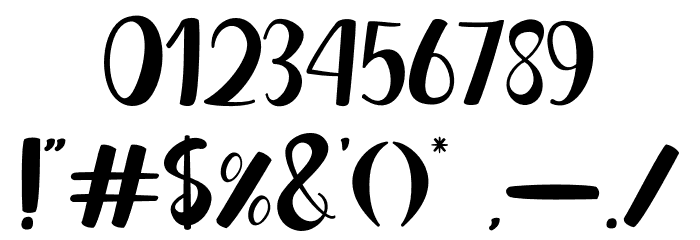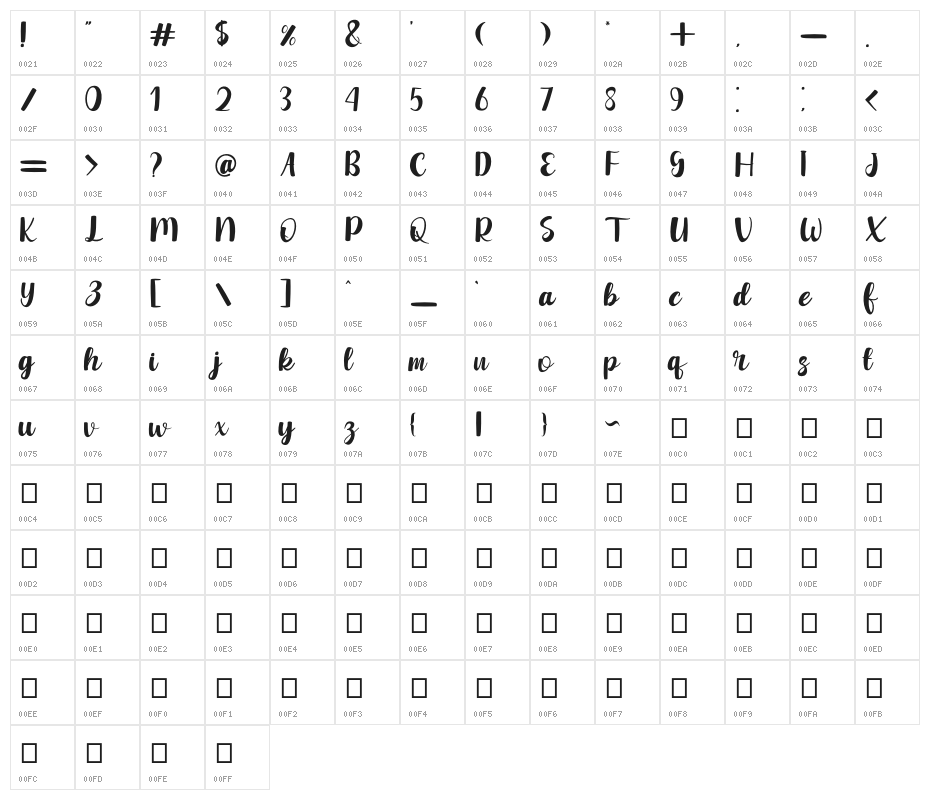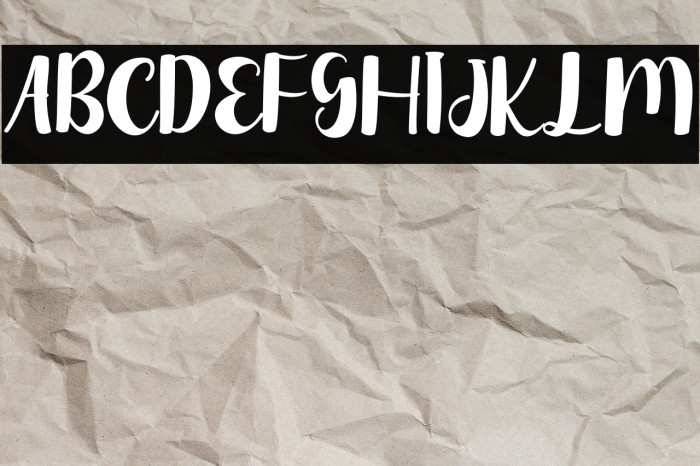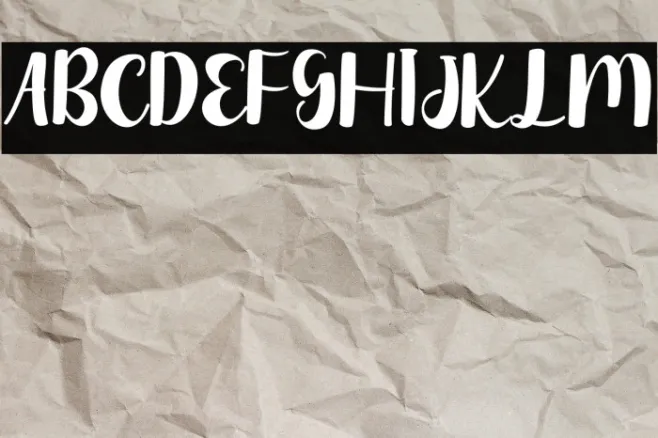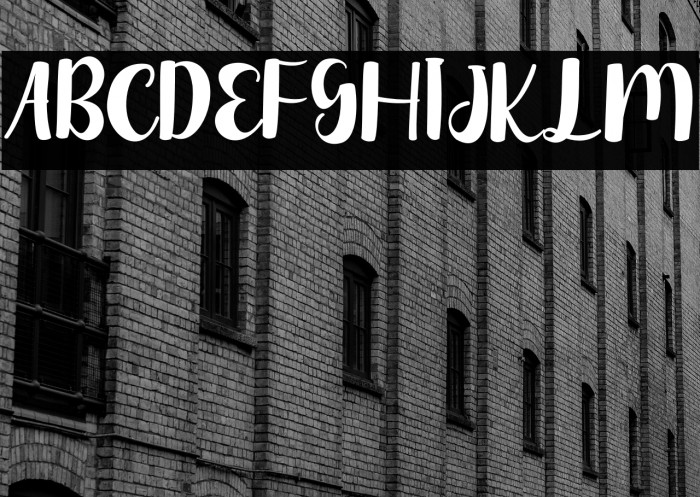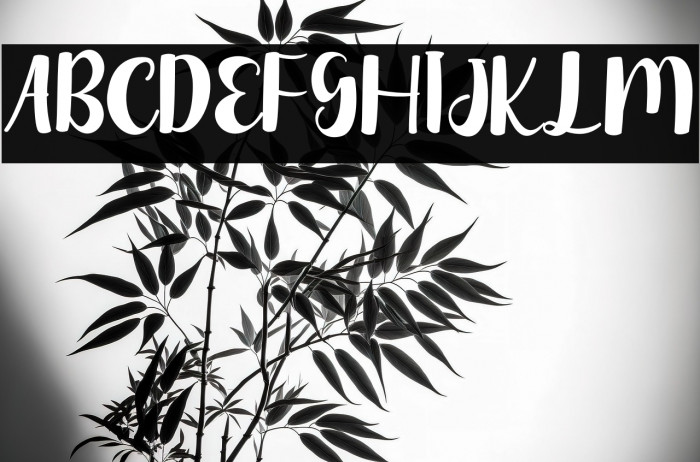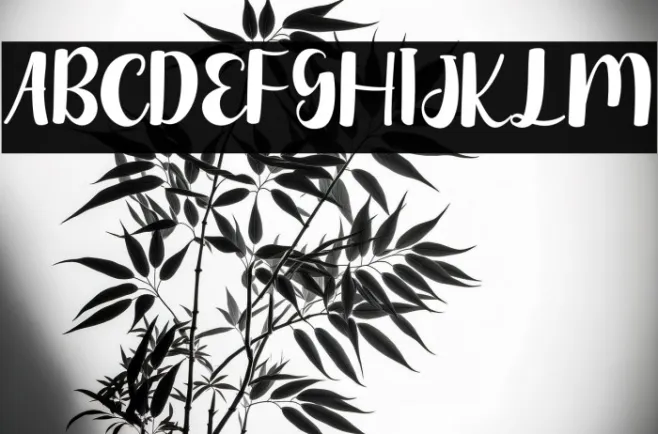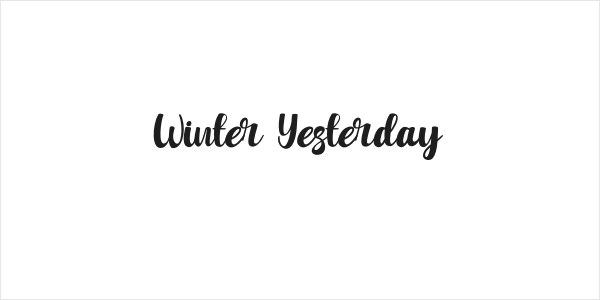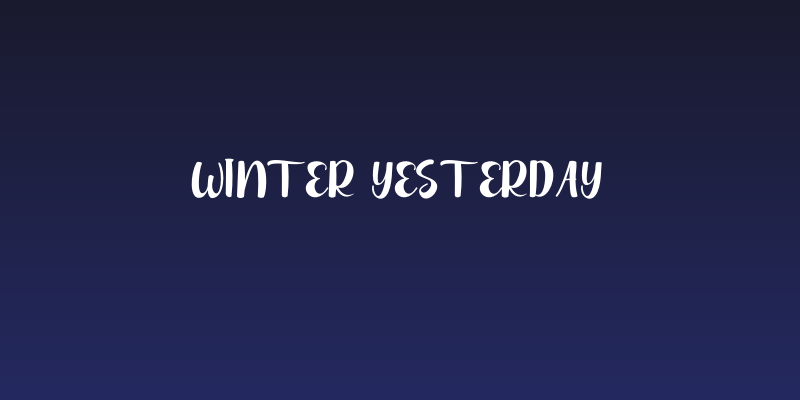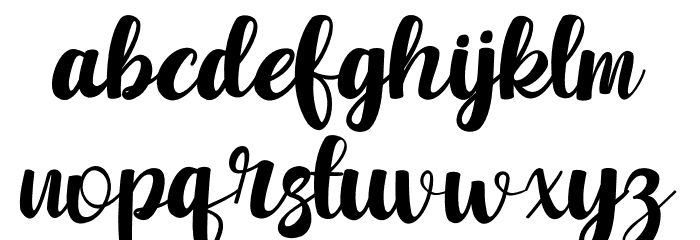
Winter Yesterday Font
Winter Yesterday Description
This font features a bold, flowing script style with a playful and dynamic character. The uppercase letters are characterized by their thick, rounded strokes and elegant curves, while the lowercase letters maintain a consistent flow with a slightly more casual appearance. The numbers and special characters are crafted to match the overall style, providing a cohesive look. The font's design exudes a sense of movement and energy, making it suitable for creative and expressive projects. Its boldness ensures readability while the script style adds a touch of elegance and personality.
Use CaseLogos, Headlines, Invitations
Proposed ProjectsIdeal for branding, invitations, greeting cards, and creative headlines.